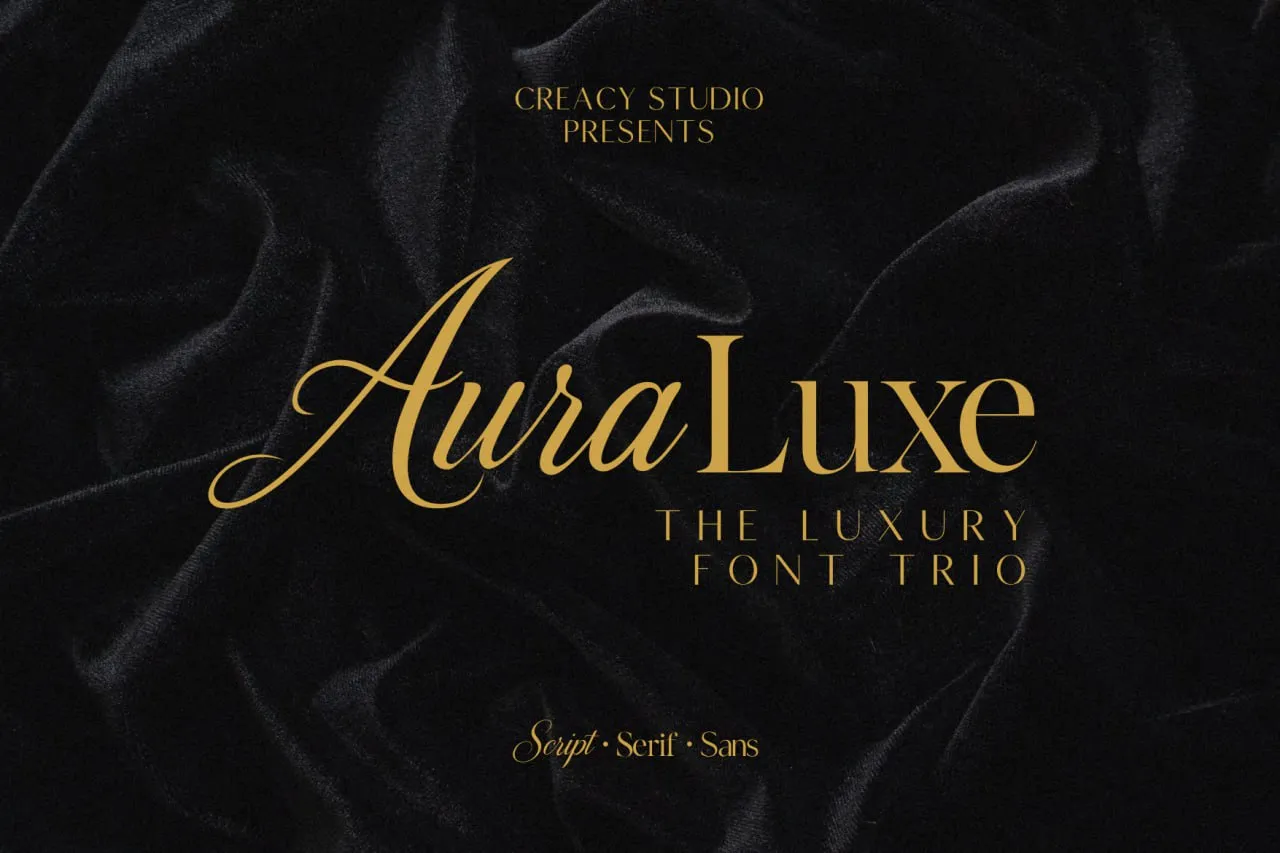
Elevate your Procreate designs with Auraluxe, a stunning free font trio featuring elegant Script, refined Serif, and clean Sans styles. Perfect for luxury branding, invitations, logo design, packaging, social media graphics, and artistic typography, this font set delivers a premium, high-end look with smooth curves and modern sophistication.
Each style in the Auraluxe trio works seamlessly inside Procreate, allowing you to craft beautiful lettering compositions, stylish title designs, and polished layouts. Whether you’re designing classy signatures, magazine-style headings, or refined aesthetic edits, these free Procreate fonts help you create visuals that feel timeless and luxurious.